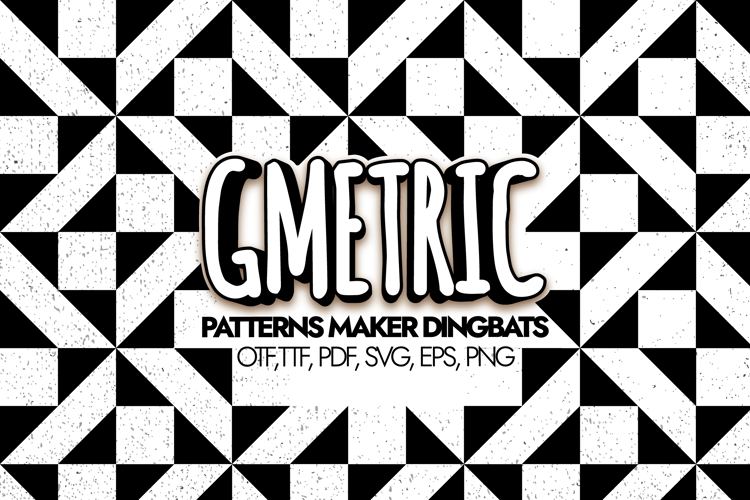
Gmetric Font
๐จ Font Name: Patterns Creator by Minimalist Art Studio
๐จ Font Description: Patterns Creator is a geometric dingbats font featuring bold black-and-white motifsโideal for textile design, branding accents, and modern layout grids.